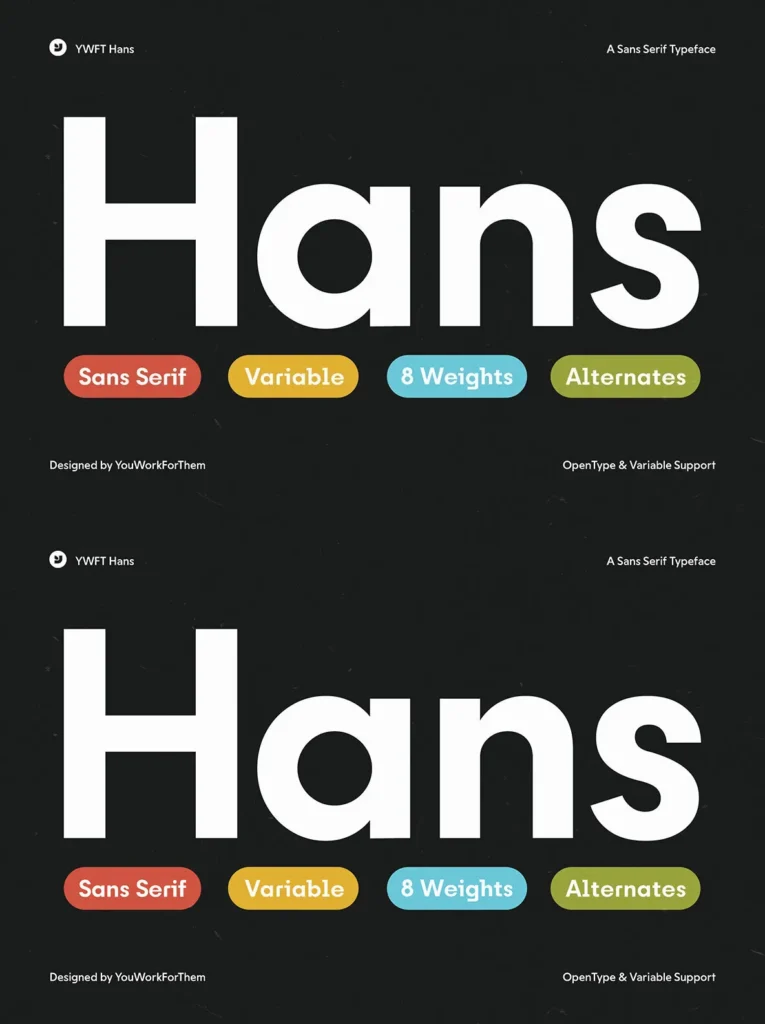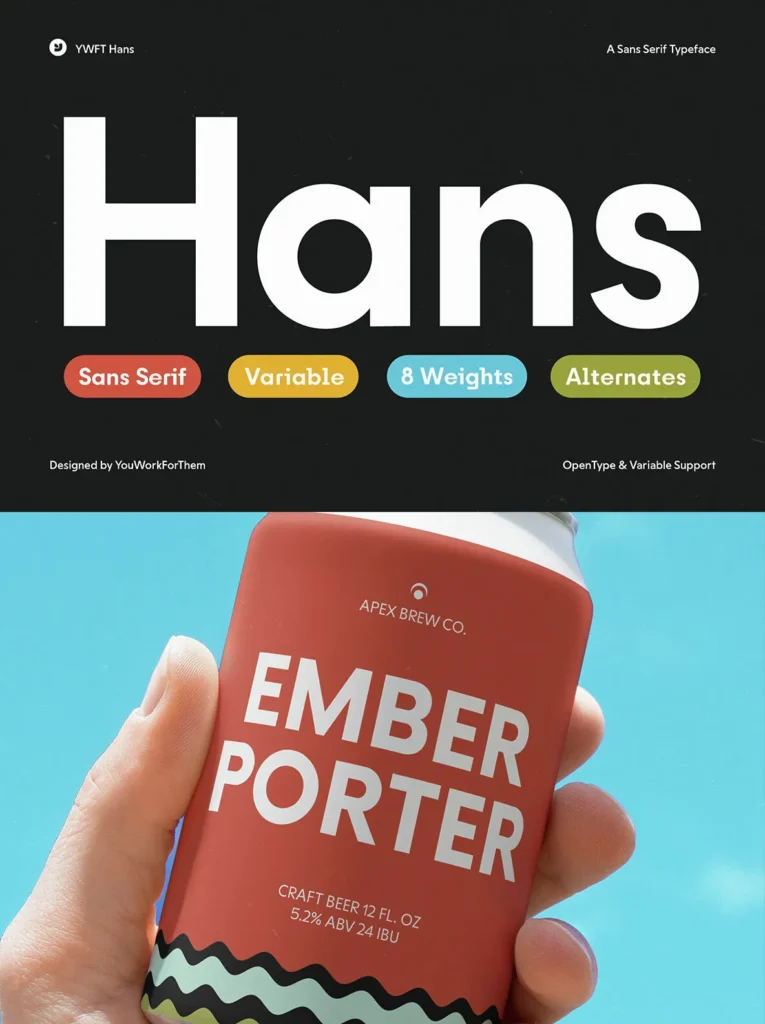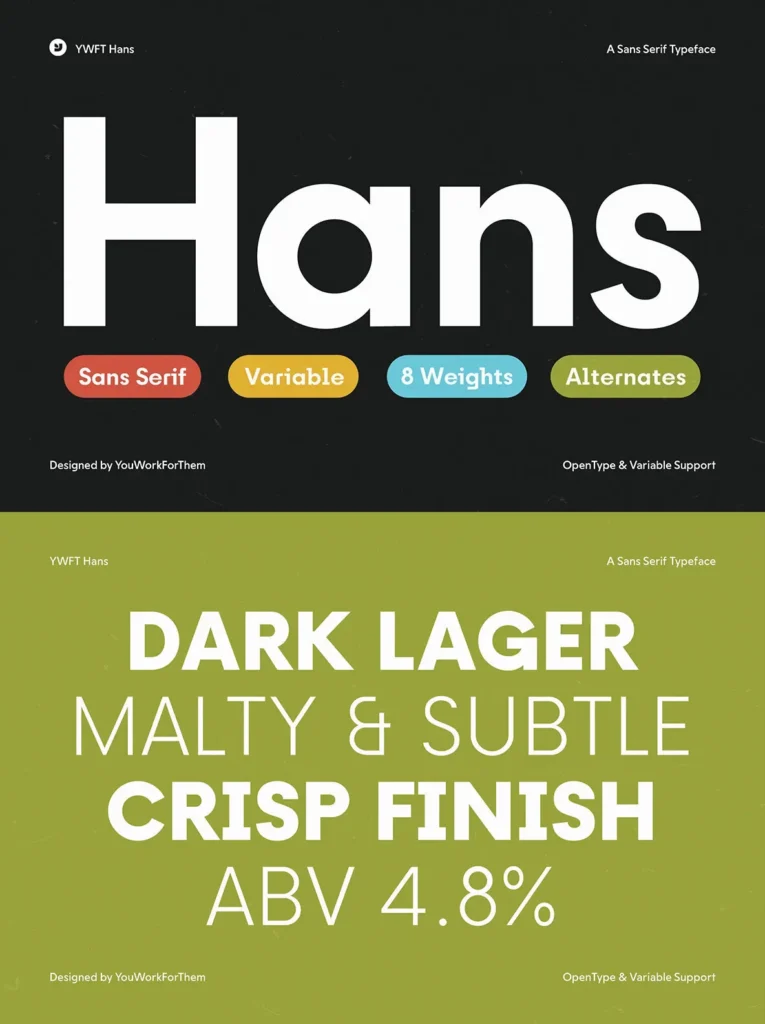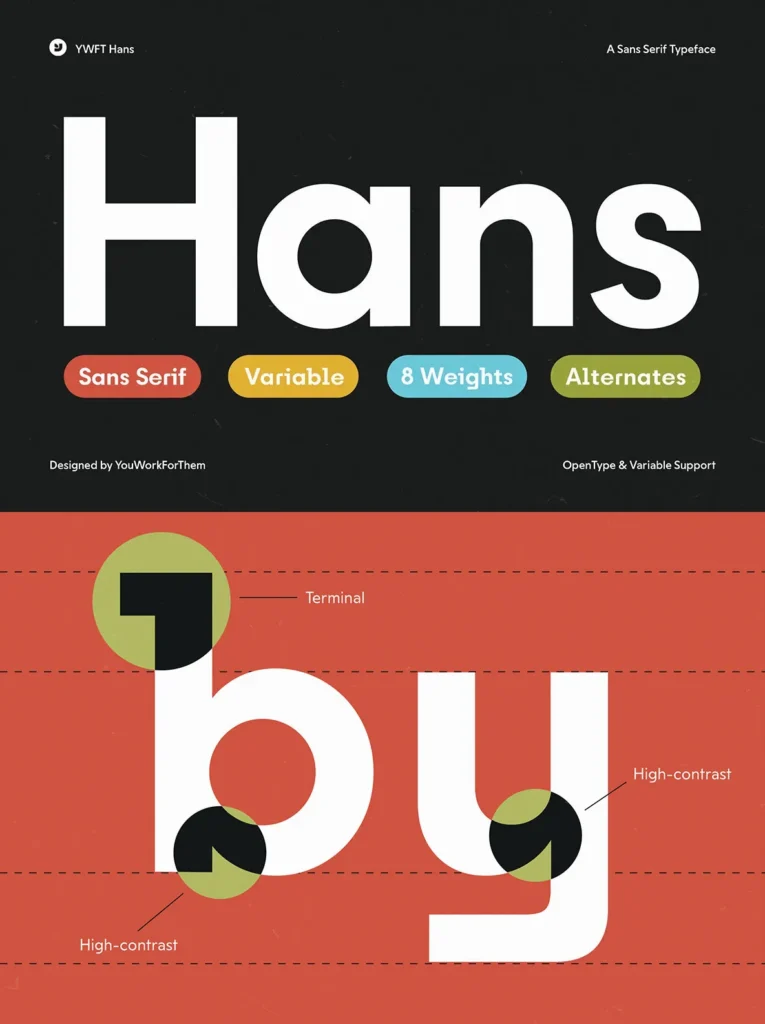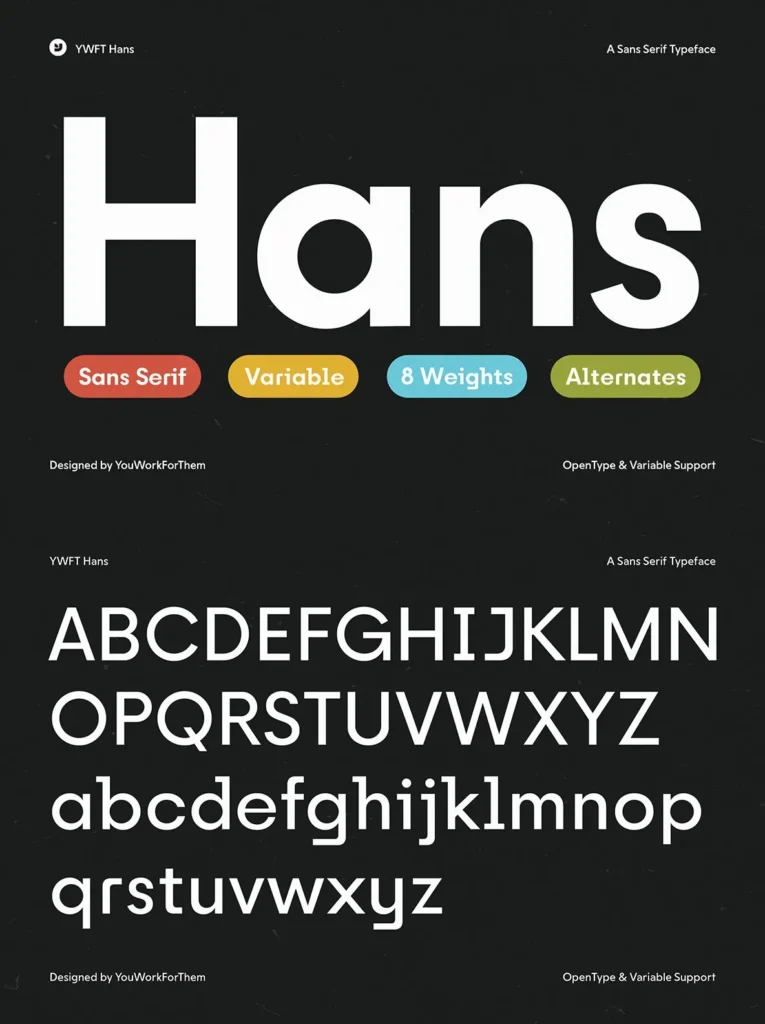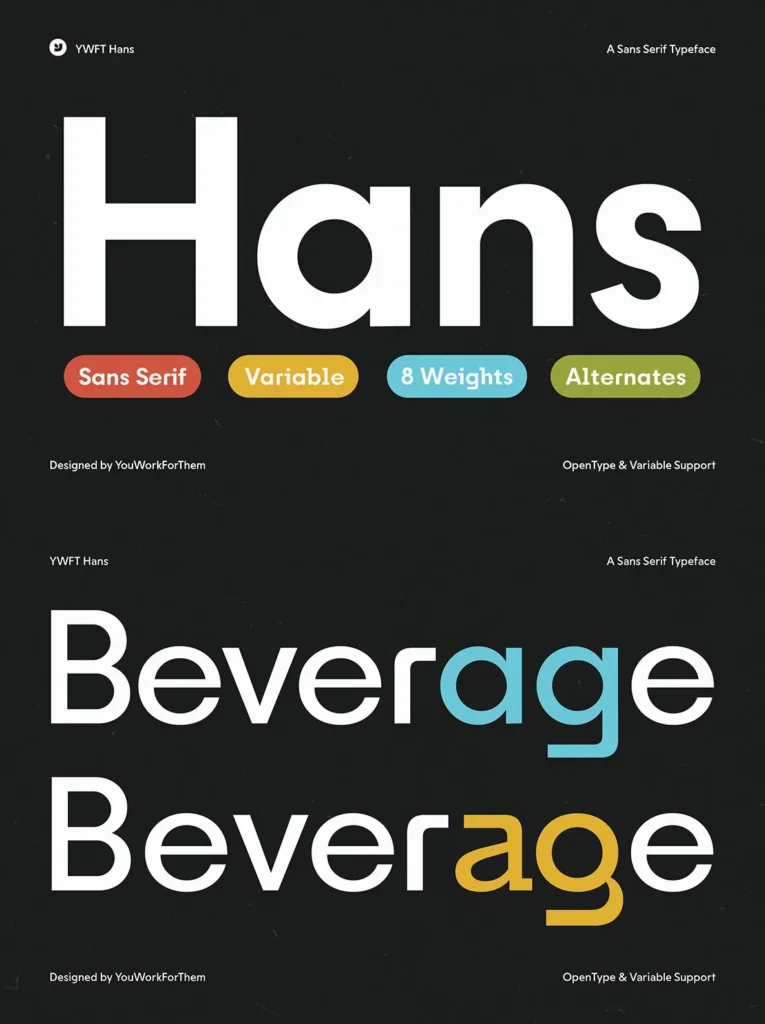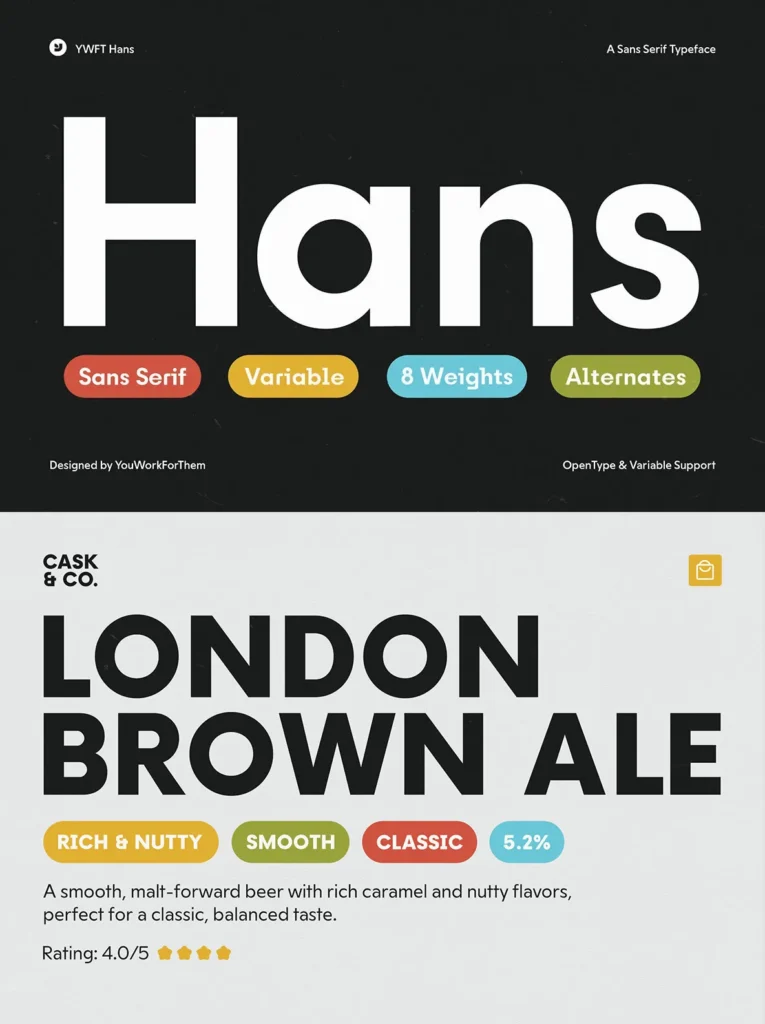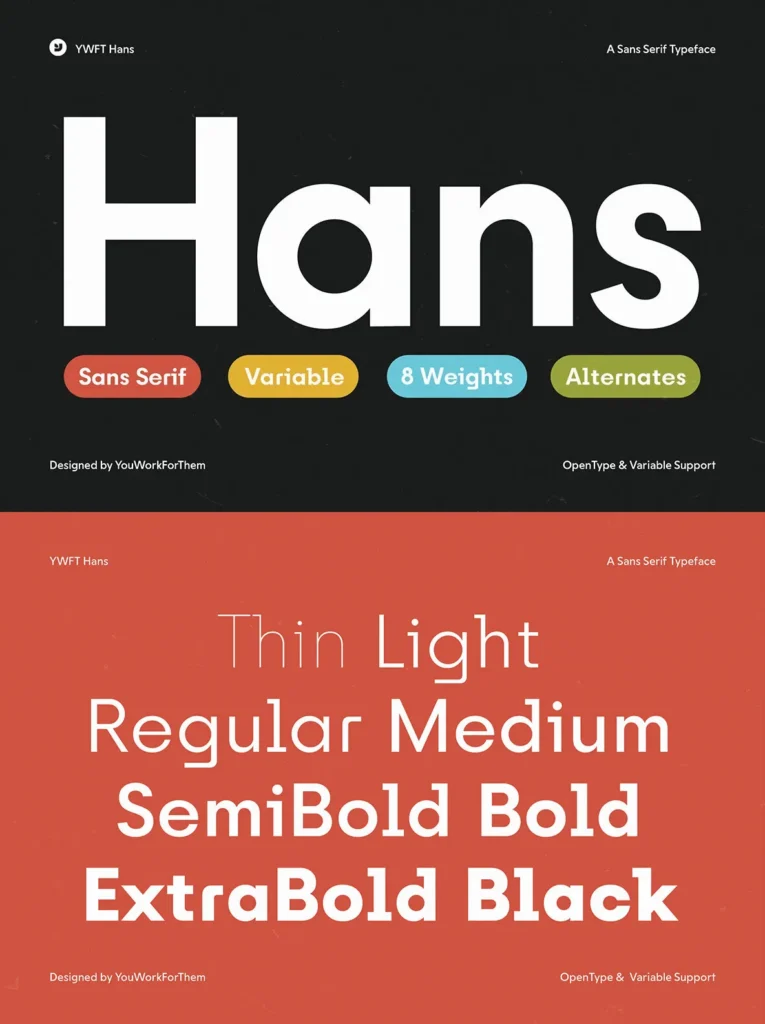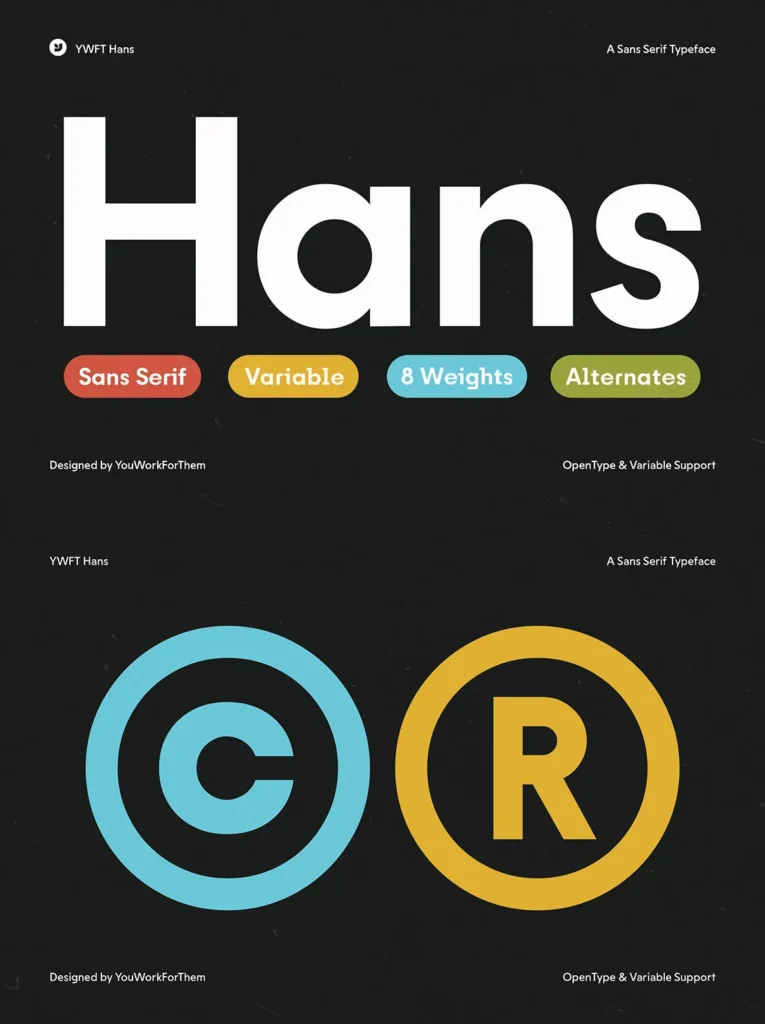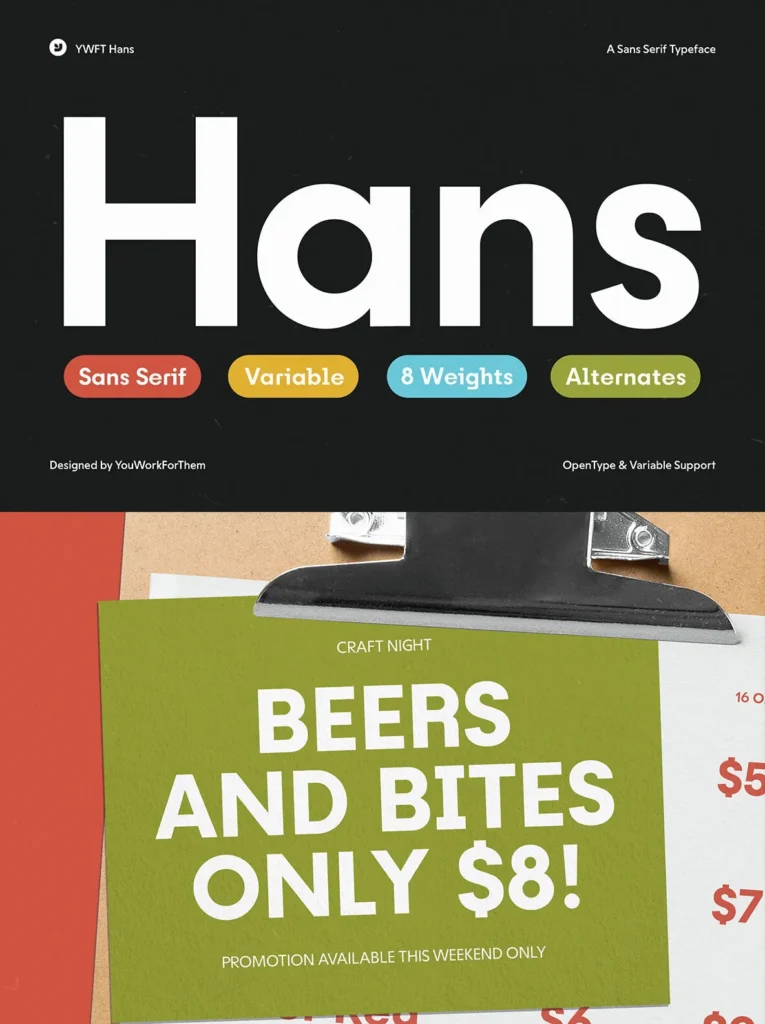
YWFT Hans Font
YWFT Hans: Inspired by Craft, Culture, and Contemporary Branding
YWFT Hans is a modern sans-serif font family designed with today’s mindful brands in mind. Whether you’re crafting labels for a local microbrewery or curating wellness content for a digital audience, this eight-weight type family brings a distinct clarity with an understated twist—purpose-built for organic food brands, healthy lifestyle products, and social media influencers who value clean lines with personality.
Designed for Visual Harmony and Branding Versatility
This type family includes:
YWFT Hans Thin
YWFT Hans Light
YWFT Hans Regular
YWFT Hans Medium
YWFT Hans SemiBold
YWFT Hans Bold
YWFT Hans ExtraBold
YWFT Hans Black
Each weight carries
430 glyphs
, supporting multilingual use across:
Basic Latin
Western and Central European
Dutch, Greek, Romanian, Turkish
Pan African Latin
The versatility makes it an ideal fit for global brands with roots in ethical sourcing and lifestyle transparency.
Features That Serve Form and Function
YWFT Hans includes advanced OpenType features that allow for nuanced typographic control:
Stylistic Alternates & Sets (01–04)
Ligatures (Standard & Discretionary)
Fractions, Superscripts, Ordinals
Localized Forms, Glyph Composition/Decomposition
These features bring a custom feel to every composition—perfect for logos, package design, and editorial content.
Created for a Lifestyle-Driven Market
Hans doesn’t just follow modern sans trends—it reinterprets them. Its soft geometry and subtly humanist curves make it warmer than most neo-grotesques, while retaining the crisp legibility expected from a workhorse font. This makes it ideal for applications like:
Craft beer can labels
Health food packaging
Nutrition-focused blogs and content creators
Sustainable fashion or eco-home product branding
Its flexible weight range also lends itself well to social-first layouts, bold hero headers, and minimalist logo work.